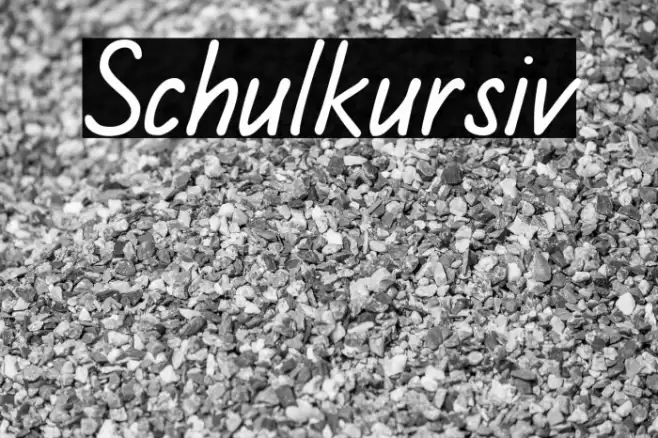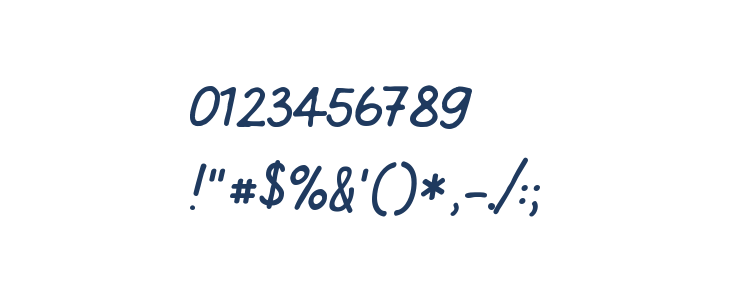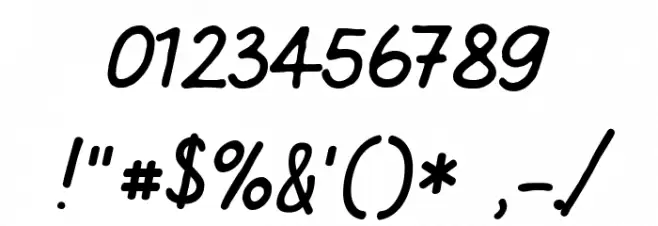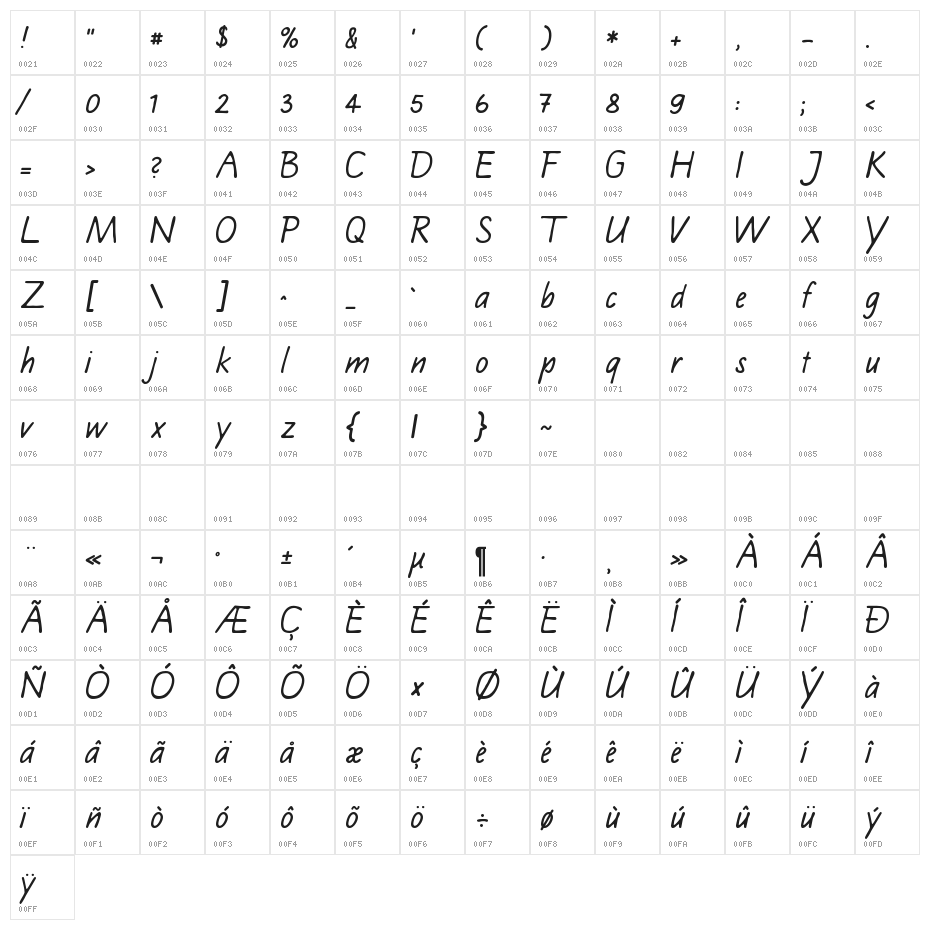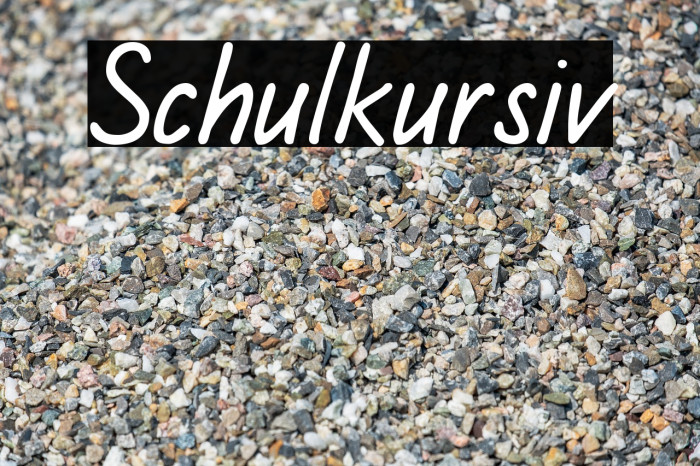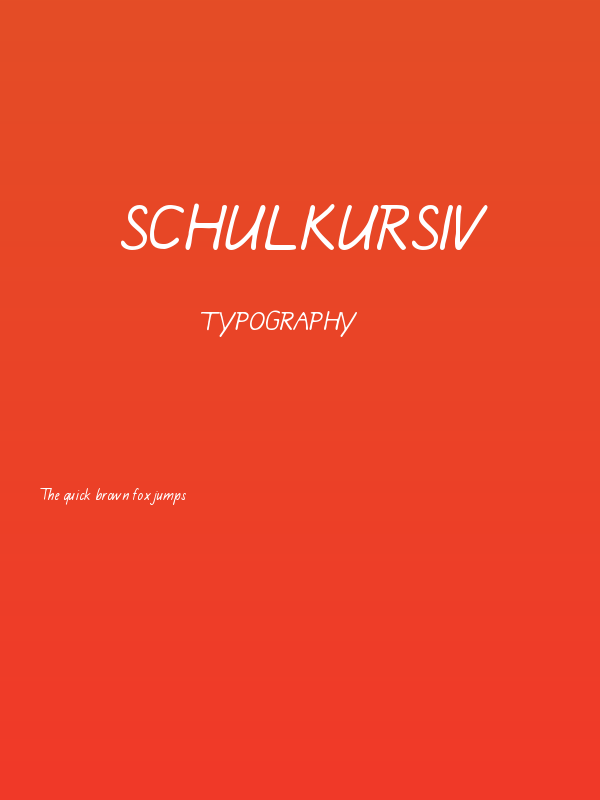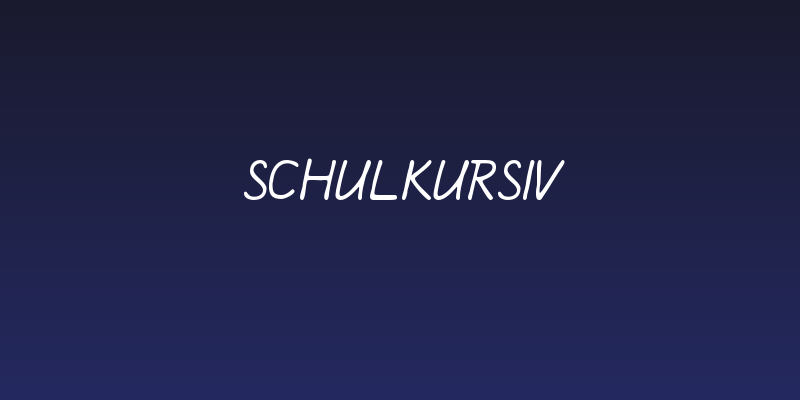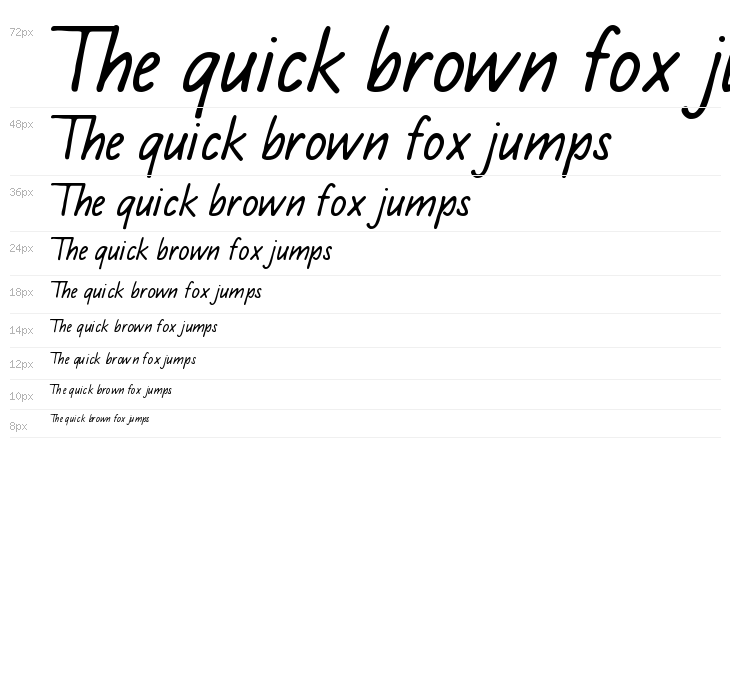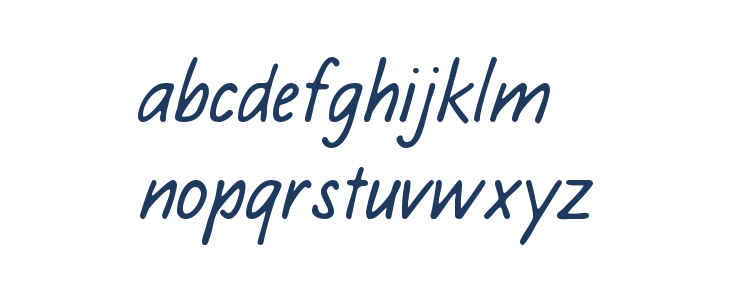
Schulkursiv Font
Schulkursiv Description
This font exhibits a handwritten, cursive style with a smooth and flowing appearance. The characters are slightly slanted, giving it an informal and personal touch. The uppercase letters maintain a consistent height, while the lowercase letters have a natural, connected flow, typical of cursive writing. The numerals are clear and legible, matching the overall style. Special characters are designed to blend seamlessly with the alphabet, maintaining the font's cohesive look. The strokes are moderately thick, providing good readability without sacrificing the handwritten aesthetic.
A smooth, cursive handwritten font with a personal touch from Uncategorized fonts.
- Proposed Projects: Ideal for personal notes, invitations, greeting cards, and educational materials.
- Overall Style: Casual, Handwritten
- Use Case: Invitations, Personal notes, Educational materials